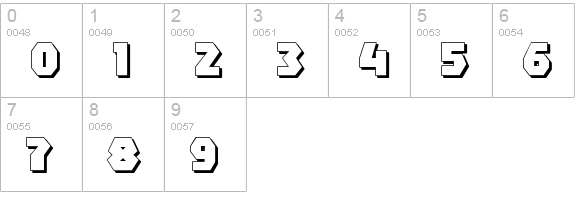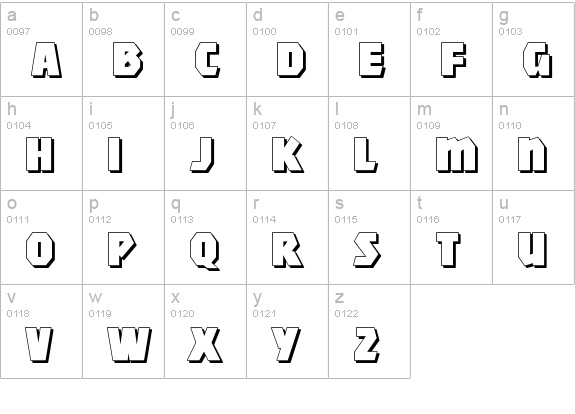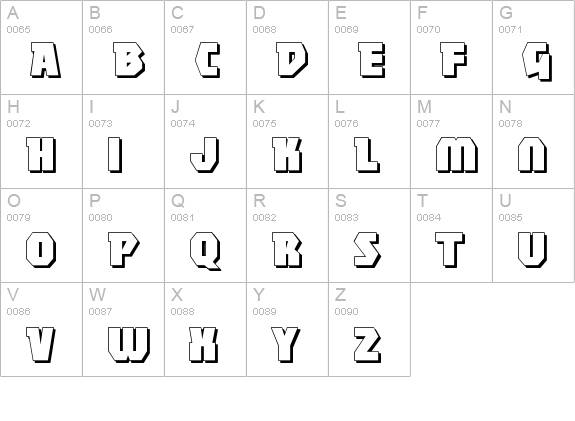
MightyShadowBlack Font Details
MightyShadowBlack font is a bold and powerful typeface that exudes strength and sophistication. With its sharp edges and shadow effect, this font commands attention and makes a striking statement in any design project. Whether used for headlines, logos, or branding materials, MightyShadowBlack font adds a touch of dramatic flair to your creations. The best part? MightyShadowBlack font is available for free download at FontsMarket.com, making it accessible to all designers looking to add a touch of boldness to their work. Don't miss out on this versatile and eye-catching font that will elevate your designs to the next level. Download it today and unleash the power of MightyShadowBlack in your projects!